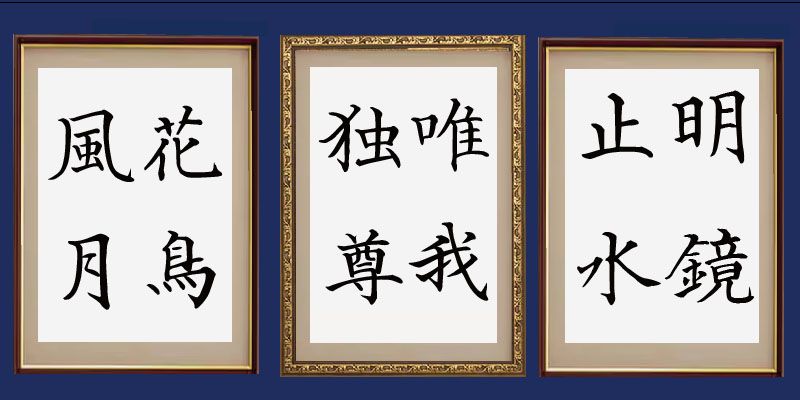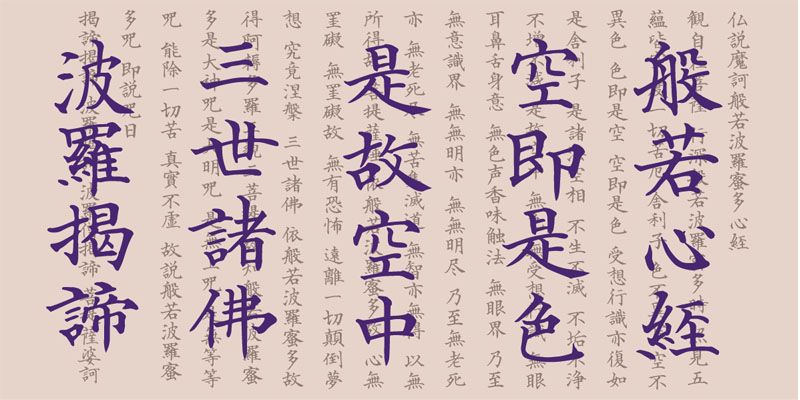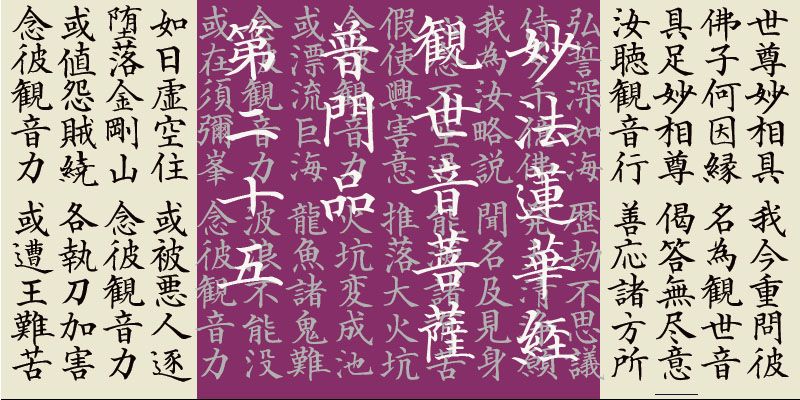
One of the unique characteristics of this typeface is that it uses glyph shapes based on a traditional handwriting style used in the past for copying sutras. To his eyes, the quality of the printed characters the type designer saw at a sutra copying ceremony was poor. So, he designed this typeface by referencing old sutra manuscripts to be useful for educational publications at Budhist temples.
The alphanumeric characters, hiragana, and katakana characters included in each font in this typeface family are designed as proportional glyphs, each with its own unique character width.
With over 60 years of experience in calligraphy, Calligrapher Hakushu Nakamoto has created brush script fonts with beautiful and skillfully handwritten letter forms. He works as a professional calligrapher, offering custom services to meet a variety of client needs. By using Nakamoto’s designs, you will become more familiar with the art of traditional calligraphy.